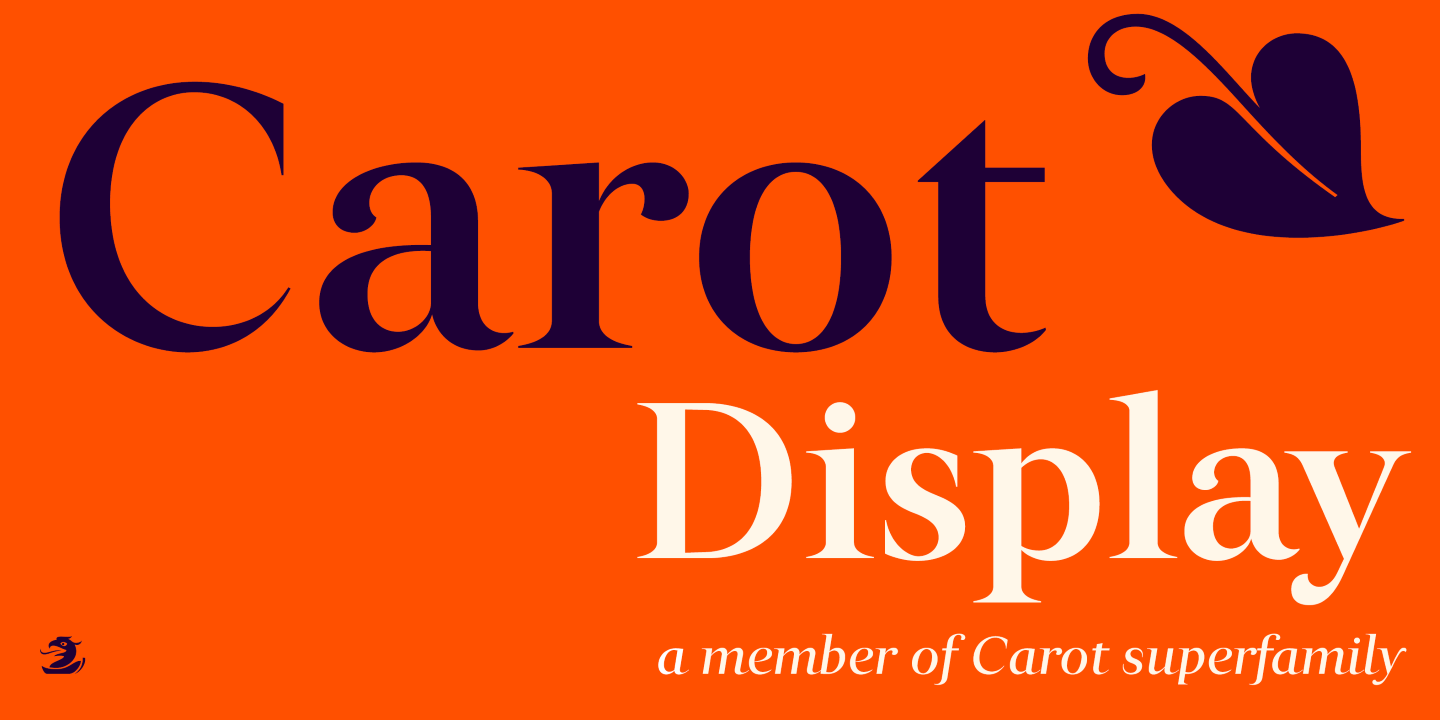
Looking to add a contemporary and impactful touch to your visual projects? Carot Display Font Free Download offers an exciting opportunity to explore a modern and versatile typeface. Please remember, however, that while a Carot Display Font Free Download is often available for personal and testing use, a commercial license is required for any professional or revenue-generating applications. This is essential for legal compliance and directly supports the dedicated font designers.
The Carot Display Font is exceptionally well-suited for projects that demand a bold, clean, and distinct presence. Its often geometric, minimalist, or subtly unique letterforms make it an excellent choice for eye-catching headlines, impactful posters, and modern branding. It's ideal for packaging design, editorial layouts, and digital advertisements where clarity and visual appeal are paramount. Furthermore, consider Carot Display Font for app interfaces, website banners, and marketing materials that aim for a sophisticated and cutting-edge aesthetic. Its strong character can also elevate event promotions and large-scale signage, ensuring maximum visibility and readability.
What makes the Carot Display Font so exciting is its ability to convey a sense of modern confidence and refined simplicity. It often features precise curves, balanced proportions, or subtle quirks that give it a unique personality without sacrificing legibility. This characteristic allows it to make a strong visual statement, ensuring your message is not just read, but also felt. It’s a font that stands out for its contemporary elegance, providing a fresh and dynamic alternative to more conventional display typefaces. Its versatility ensures your designs will appear polished, memorable, and impactful across various platforms.
The Carot Display Font family typically offers a range of weights to maximize its utility and allow for diverse typographic expressions. You'll often find options from Light and Regular to Medium, SemiBold, and Bold, often accompanied by corresponding italic styles. Some extensive families might even include Thin or Black weights, providing greater flexibility for creating robust visual hierarchies. These variations ensure designers can maintain a consistent visual theme while adapting the font to different design needs and contexts.